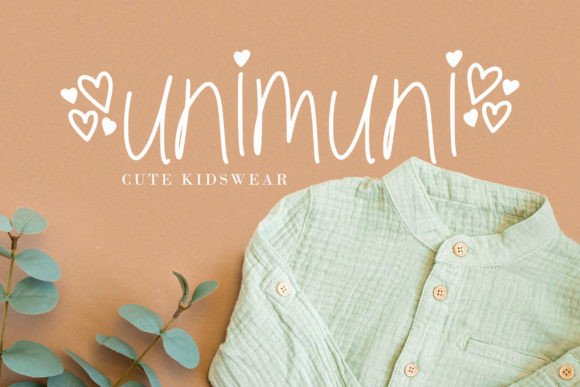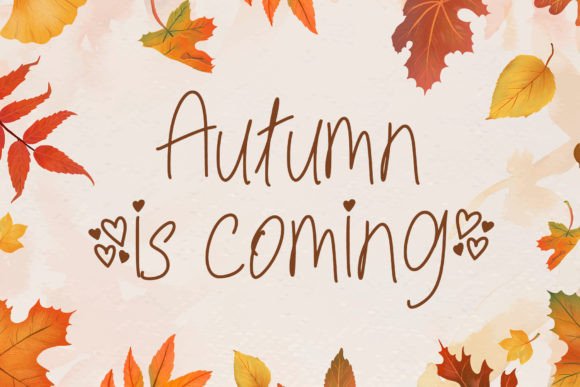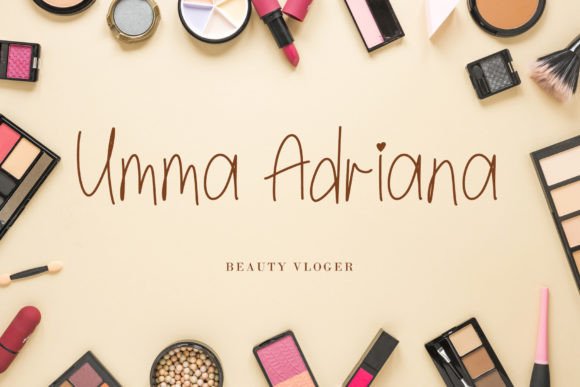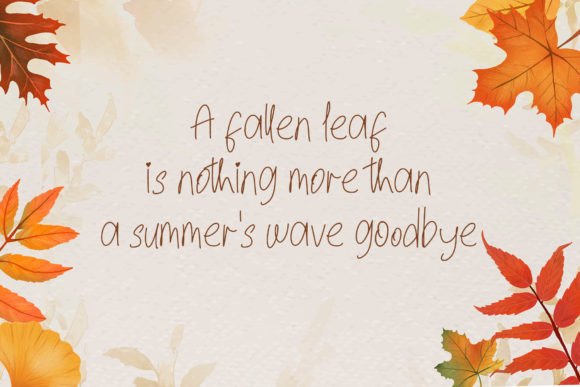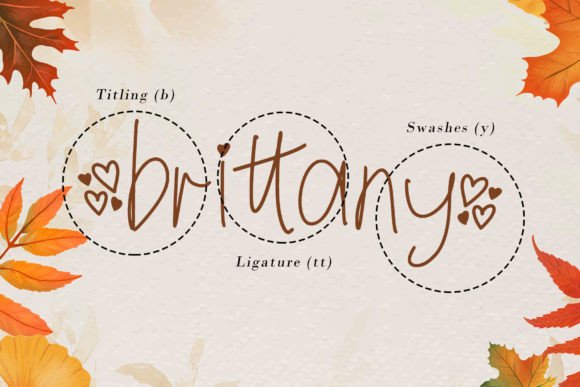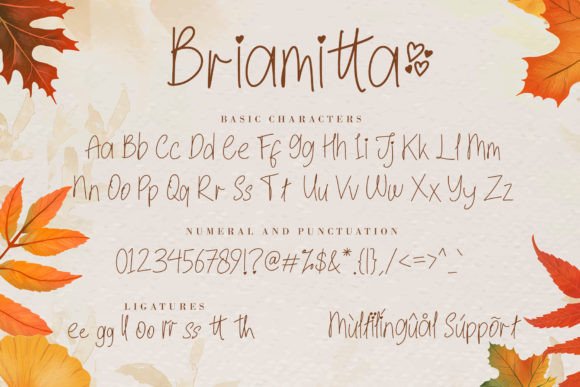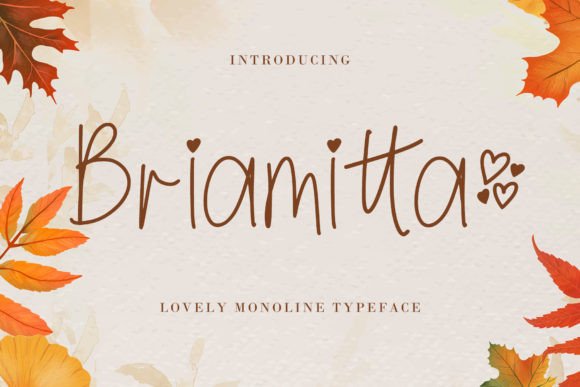
Briamitta Font: The Perfect Addition to Your Children’s Design Projects
Are you a designer or crafter looking for a font that can add a touch of fun and playfulness to your children’s design projects? Look no further than the Briamitta font! This monoline handwritten font is the perfect choice for creating cute and engaging designs that kids will love.
What is Briamitta Font?
Briamitta is a monoline handwritten font that is characterized by its simplicity, brightness, and playfulness. The font features smooth, flowing lines that give it a friendly and approachable feel. Its monoline design makes it easy to read and understand, making it perfect for use in children’s books, educational materials, and other kid-friendly designs.
Why Choose Briamitta Font?
So, why should you choose Briamitta font for your children’s design projects? Here are just a few reasons:
- Cute and Playful: Briamitta font is designed to be cute and playful, making it perfect for children’s designs. Its bright and cheerful appearance is sure to capture kids’ attention and keep them engaged.
- Versatile: Briamitta font is versatile and can be used in a variety of design projects, from children’s books and educational materials to posters, flyers, and more.
- Easy to Read: The monoline design of Briamitta font makes it easy to read and understand, even for young children.
- Perfect for Bright and Pastel Colors: Briamitta font looks amazing when paired with bright and pastel colors, making it perfect for creating fun and playful designs.
How to Use Briamitta Font in Your Designs
Using Briamitta font in your designs is easy! Here are a few tips to get you started:
- Pair with Bright and Pastel Colors: As mentioned earlier, Briamitta font looks amazing when paired with bright and pastel colors. Try combining it with colors like pink, blue, yellow, and green to create a fun and playful design.
- Use in Children’s Books and Educational Materials: Briamitta font is perfect for use in children’s books and educational materials. Its easy-to-read design makes it ideal for kids, and its playful appearance will keep them engaged.
- Add to Posters and Flyers: Briamitta font is also great for use in posters and flyers. Its bold and playful design makes it perfect for grabbing kids’ attention and promoting events or products.
If you’re a designer or crafter looking to use Briamitta font in your work, here are a few tips to keep in mind:
- Experiment with Different Colors: Don’t be afraid to experiment with different colors and combinations to find the perfect look for your design.
- Use in Combination with Other Fonts: Briamitta font can be used in combination with other fonts to create a unique and interesting design.
- Pay Attention to Legibility: While Briamitta font is easy to read, it’s still important to pay attention to legibility. Make sure to use a large enough font size and clear enough design to ensure that your text is easy to read.
| Font Name | Briamitta Font |
| Author | AEN Creative Studio |
In conclusion, Briamitta font is a great choice for designers and crafters looking to add a touch of fun and playfulness to their children’s design projects. Its cute and playful design, versatility, and ease of use make it the perfect addition to any design. So why not give Briamitta font a try and see how it can make your designs stand out?
Add this beautiful display font to each of your creative ideas, and notice how it makes them stand out! With Briamitta font, you’ll be able to create engaging and fun designs that kids will love.